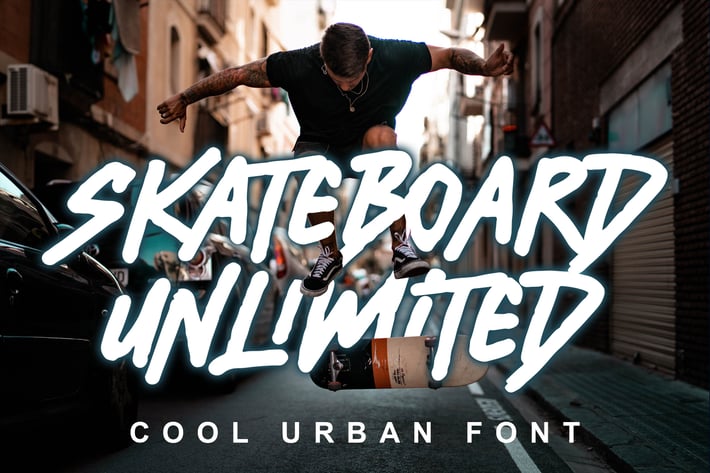
Skateboard Unlimited Font
SKATEBOARD UNLIMITED FONT is natural handmade font, from paper to digital and then we digitized it carefully.
This type of font is perfect for you who design something for advertisement, clothing, music album or logo.
Support Multilingual Characters (Basic Western : AÀÁÂÃÄÅCÇDÐEÈÉÊËIÌÍÎÏNÑOØÒÓÔÕÖUÙÜÚÛWYÝŸỲŸÆßÞþ )